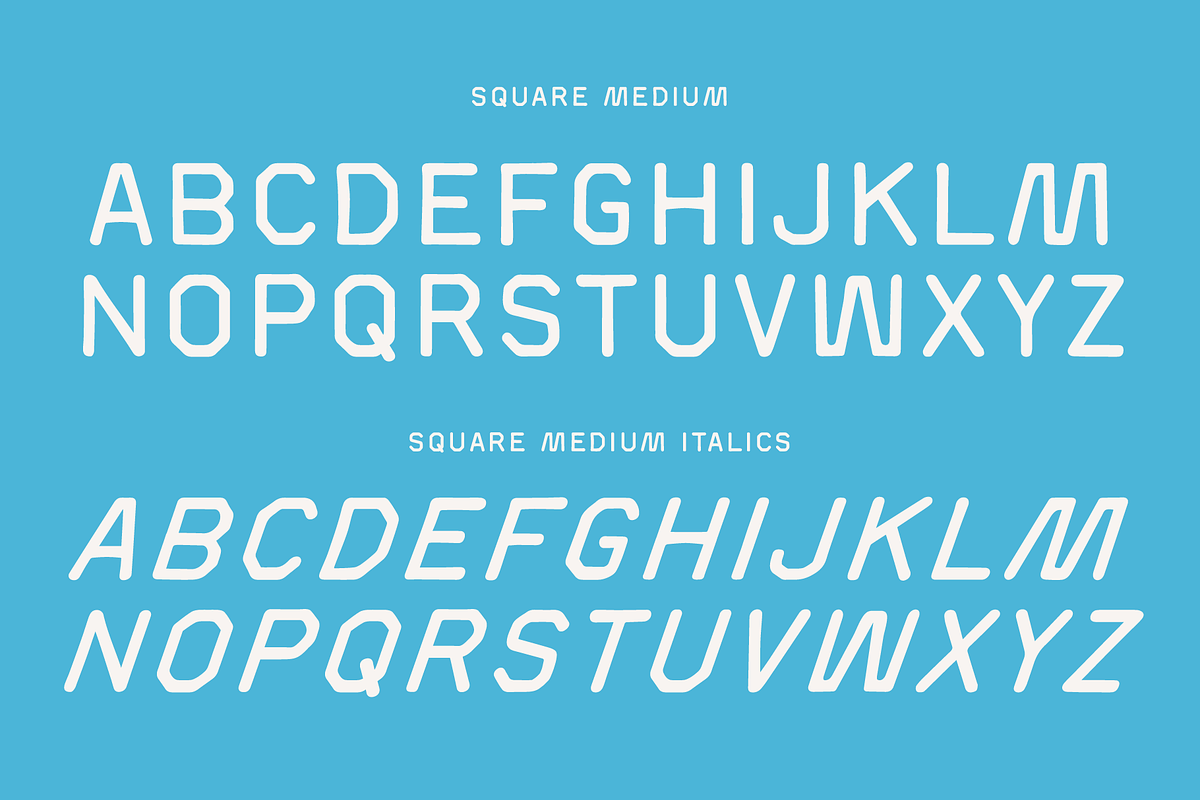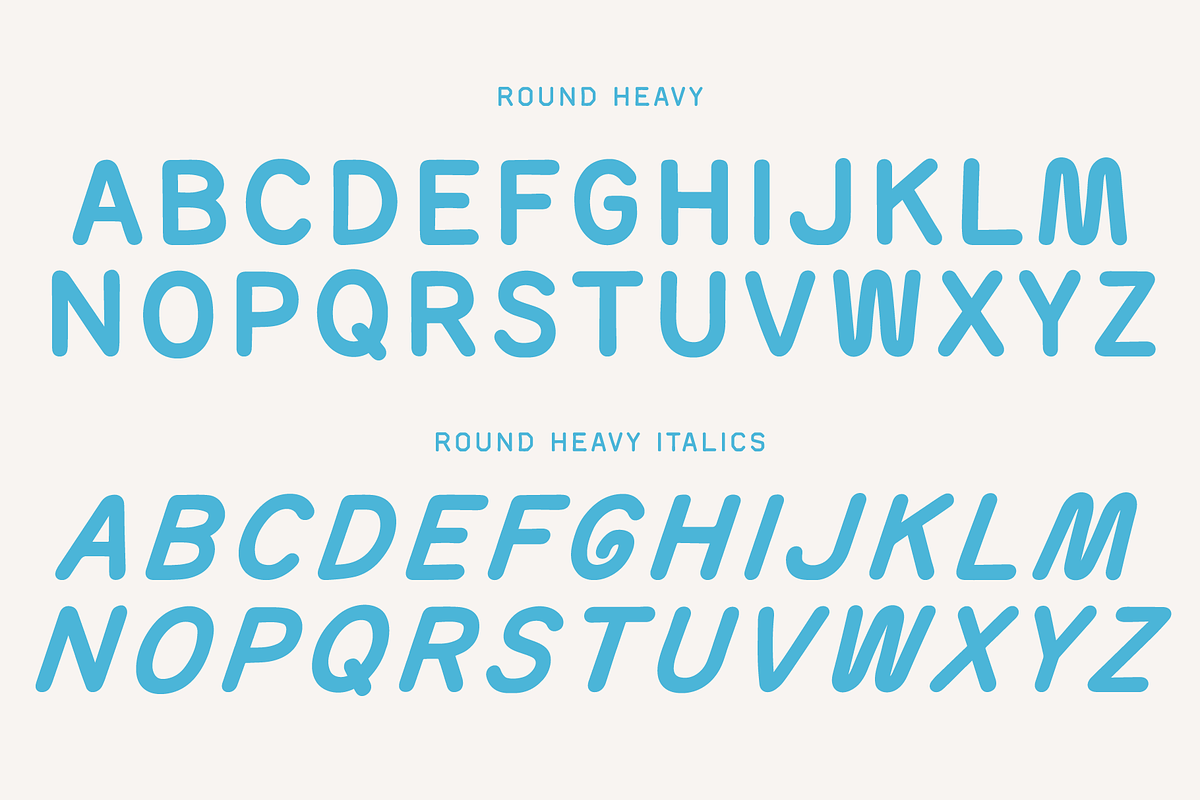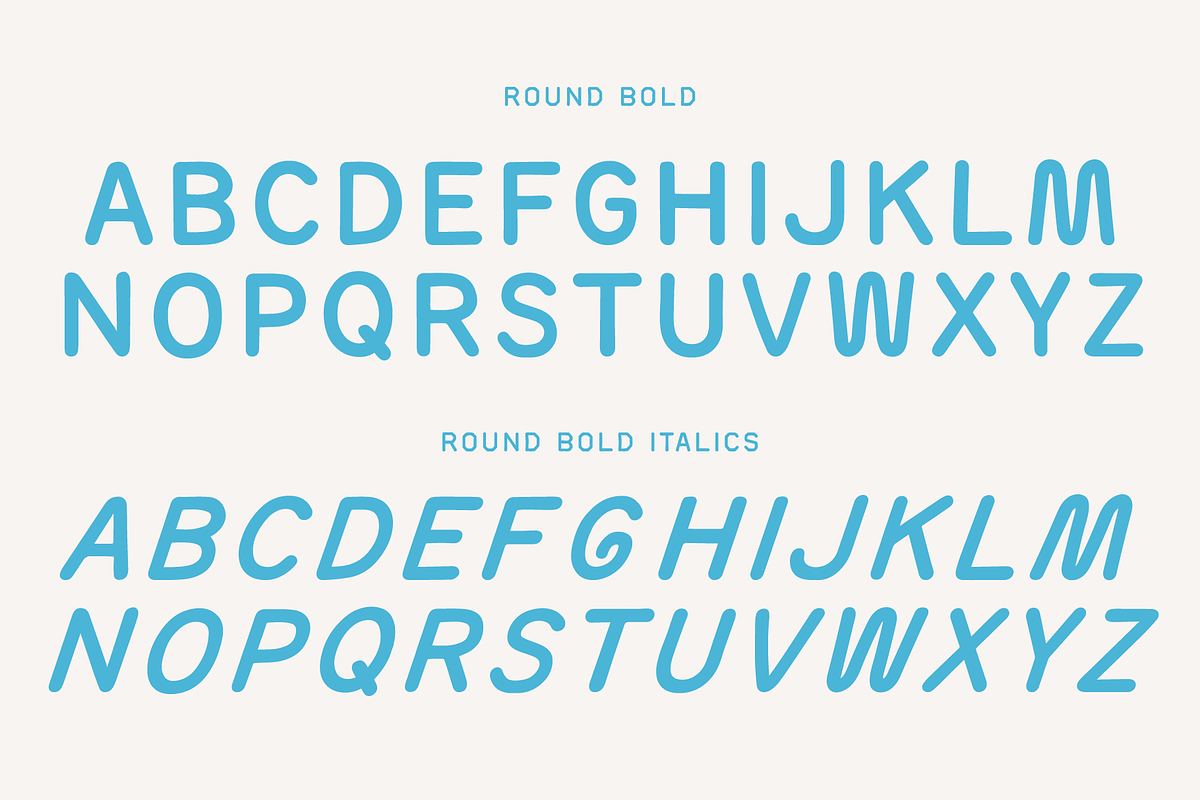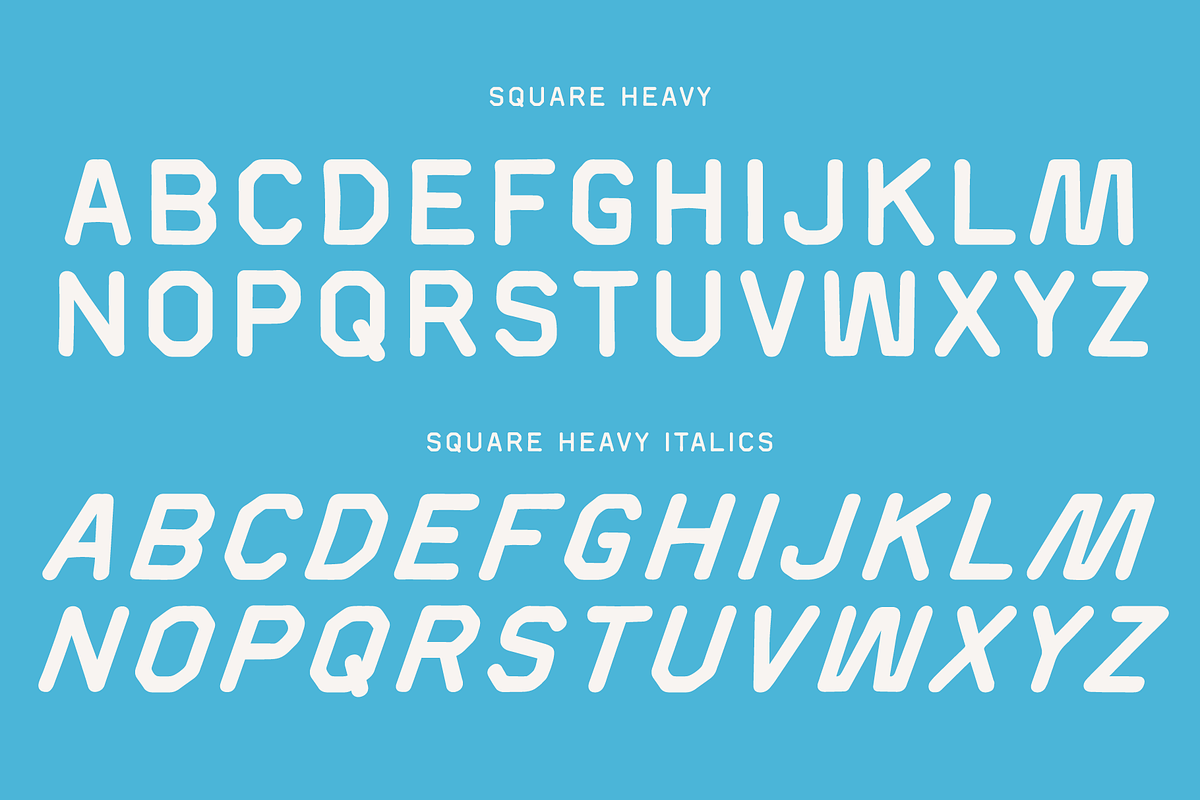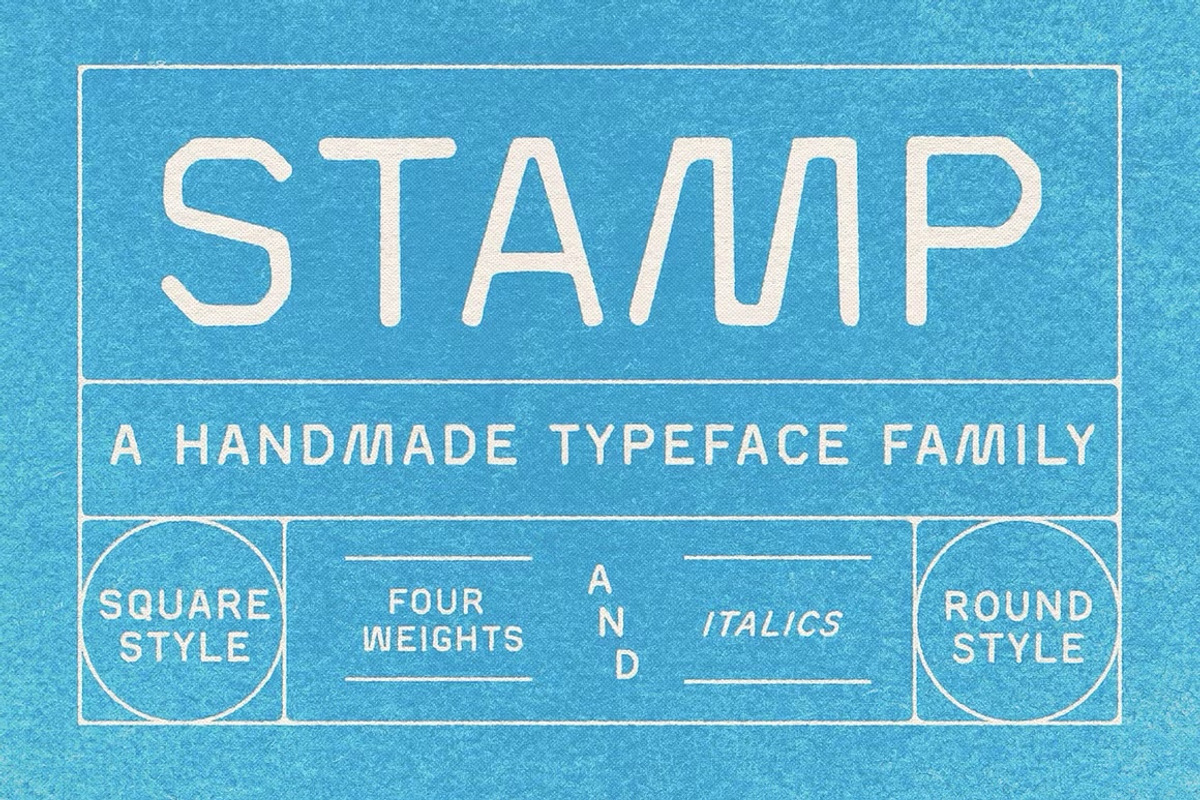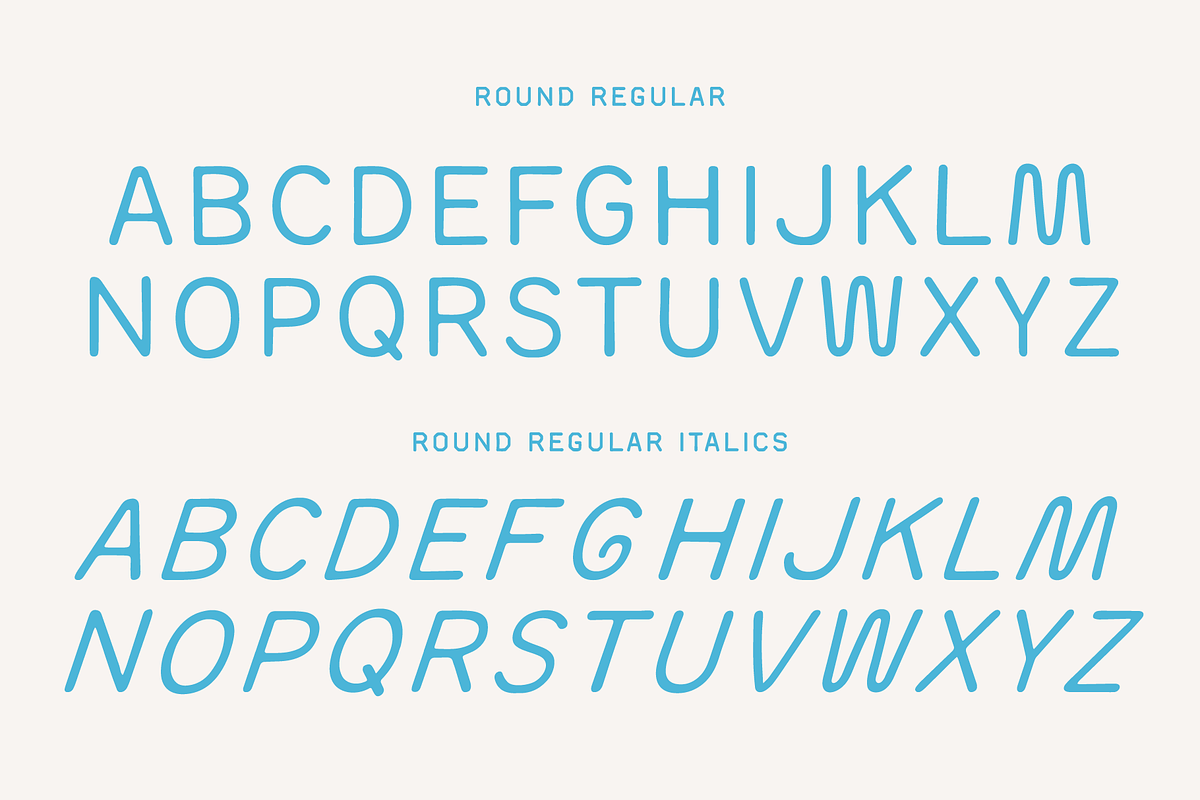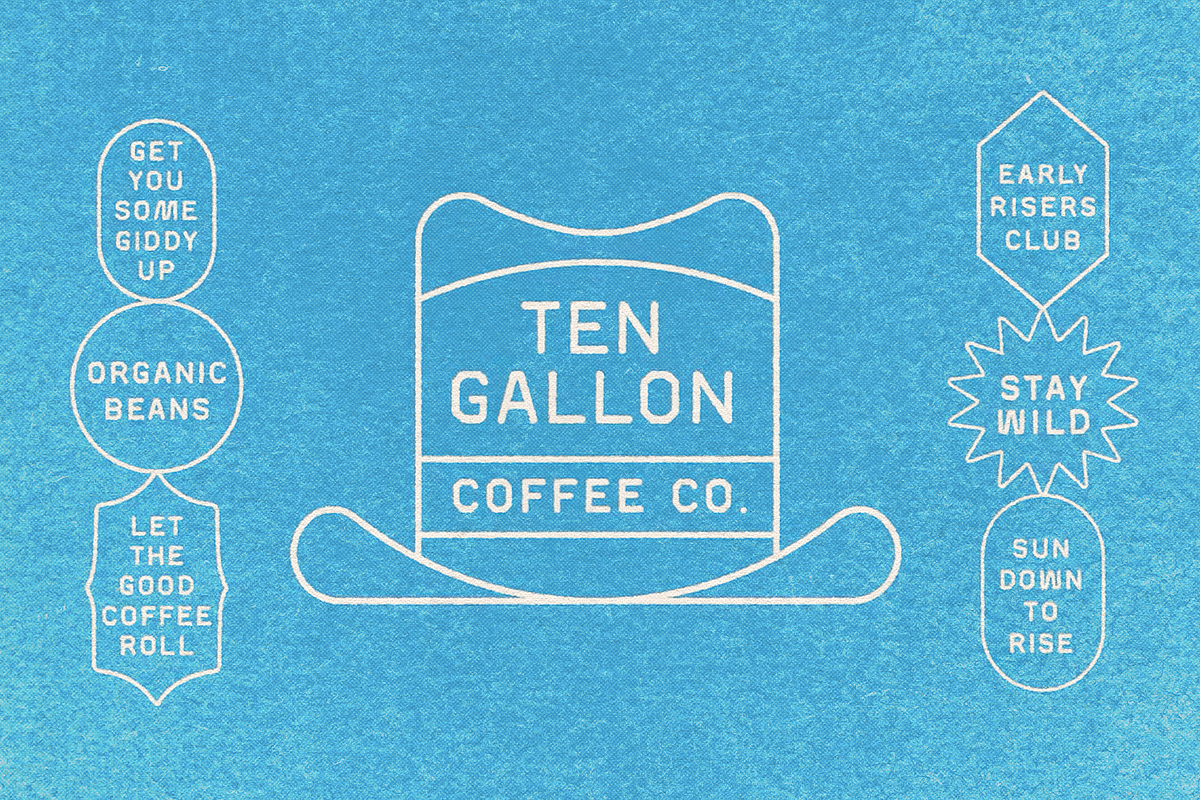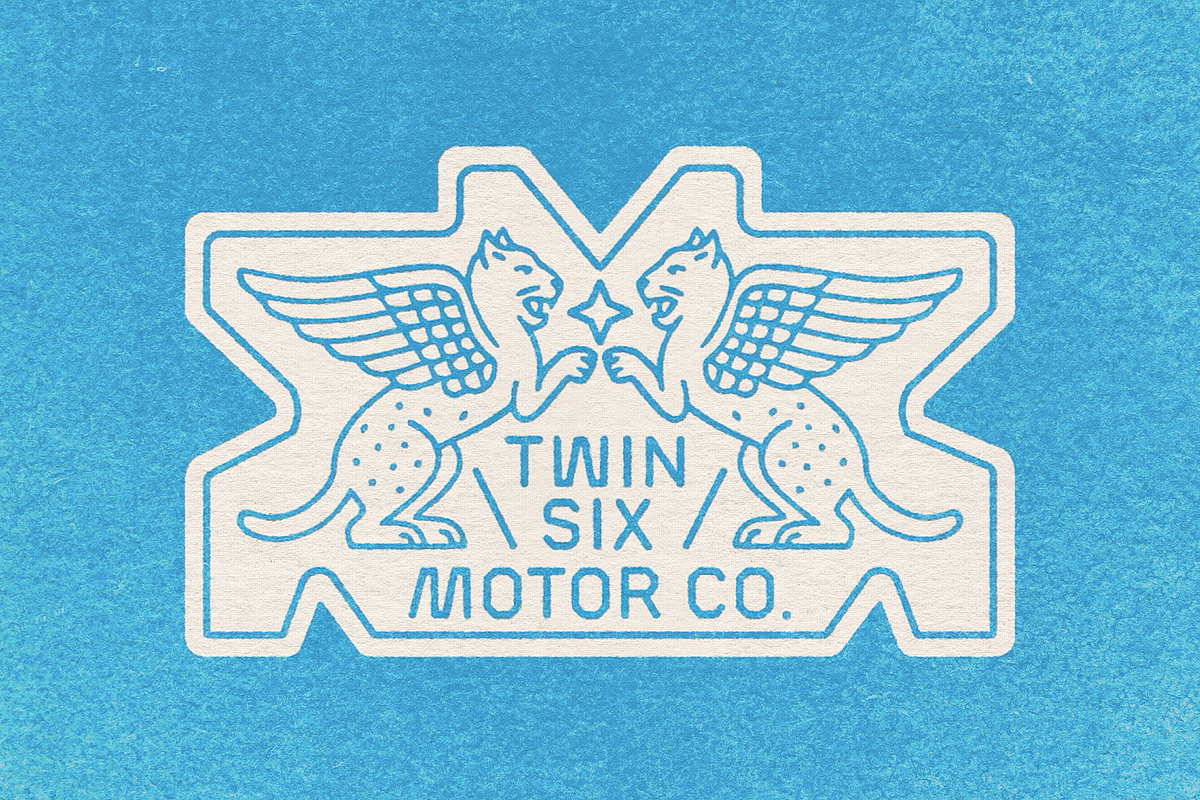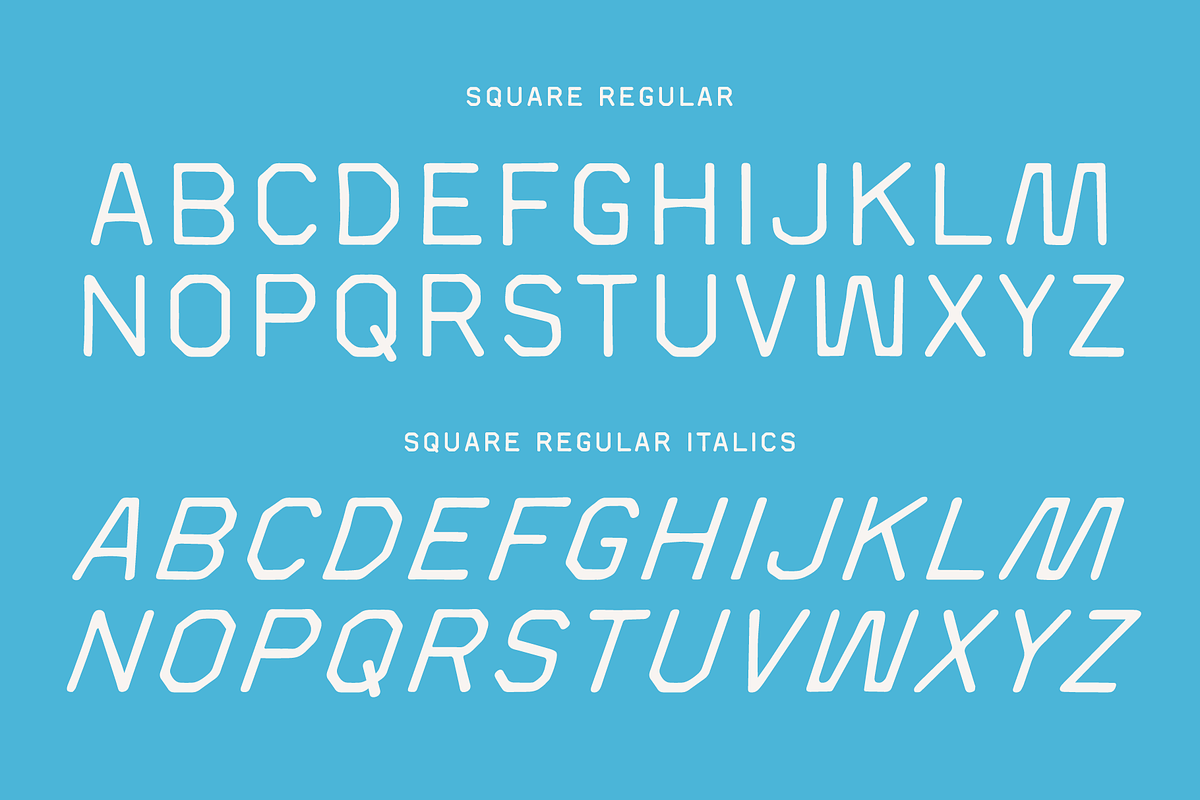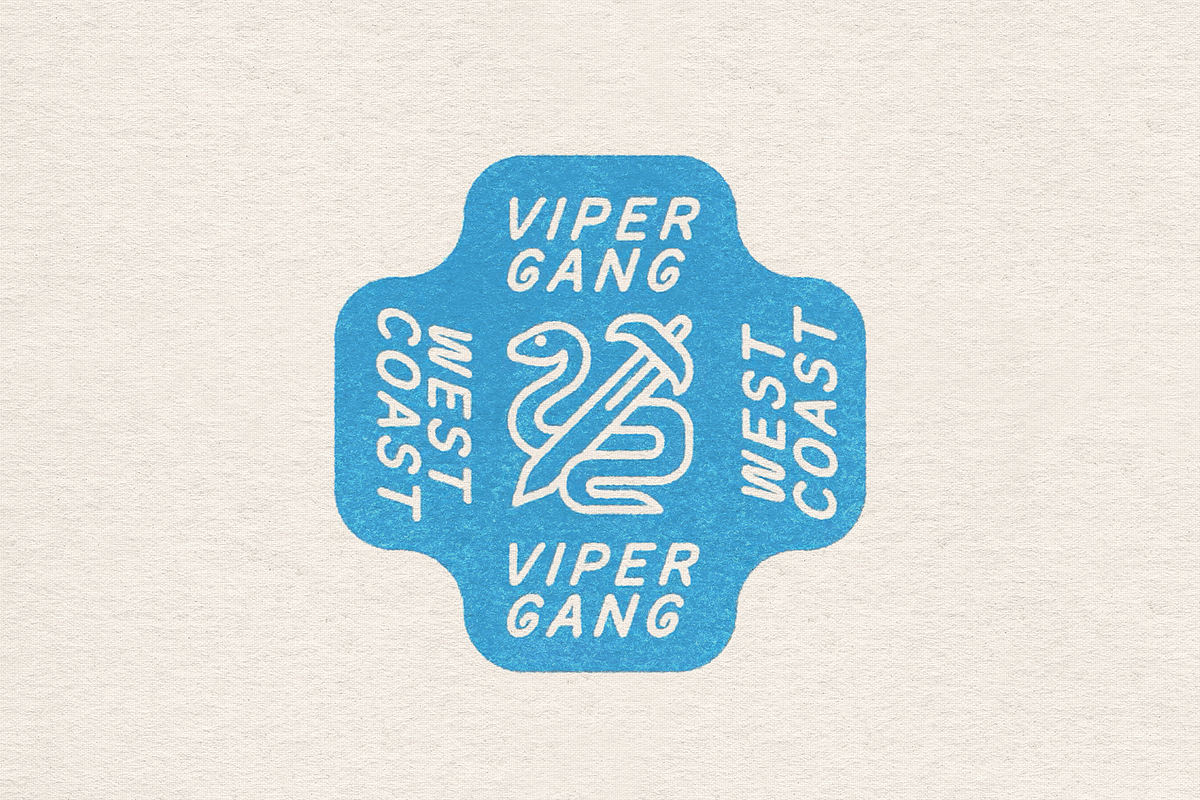
Stamp - Typeface Collection
Meet Stamp, a versatile hand-drawn type collection that brings the warmth of vintage sign painting and craftsman stamps into your modern design toolkit. With its subtly irregular lines, rounded corners, and easygoing personality, Stamp is crafted to feel both nostalgic and fresh — like a bold letterpress print that never goes out of style.
This family includes four carefully balanced weights plus matching italics, giving you plenty of room to mix, match, and layer. From branding and packaging to merch, editorial, and bold display headlines, Stamp is ready to stamp its character onto every project.
✔️Two Styles: Square Round ✔️ Four weights plus matching italics ✔️ Uppercase A–Z ✔️ Handcrafted feel with square and round styles ✔️ Perfect for retro branding, signage, and standout graphics ✔️ Numbers, punctuation, symbols